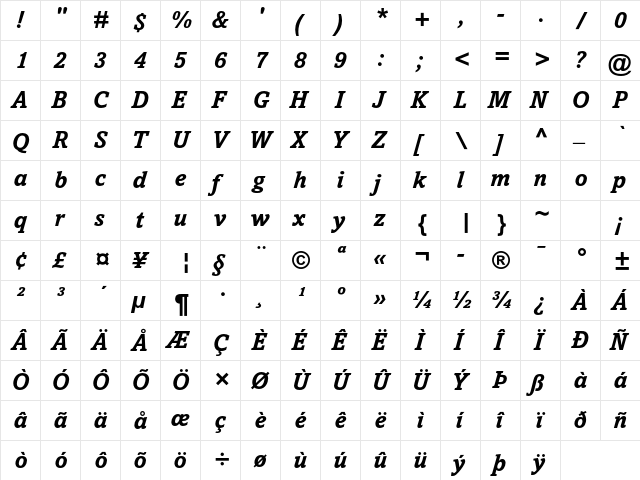
Amasis MT Std Bold Italic Font Preview
Design Context for Amasis MT Std Typeface
Amasis MT Std takes a measured approach to typography — its balanced proportions and neutral character make it a reliable workhorse for both digital and print work. Its italic angle brings a sense of urgency and motion to the letterforms. The heavy weight commands attention and anchors typographic hierarchies.
Pro Tip: Try Amasis MT Std for annotation and caption copy alongside an upright companion — the contrast in angle creates a dynamic but ordered typographic system.